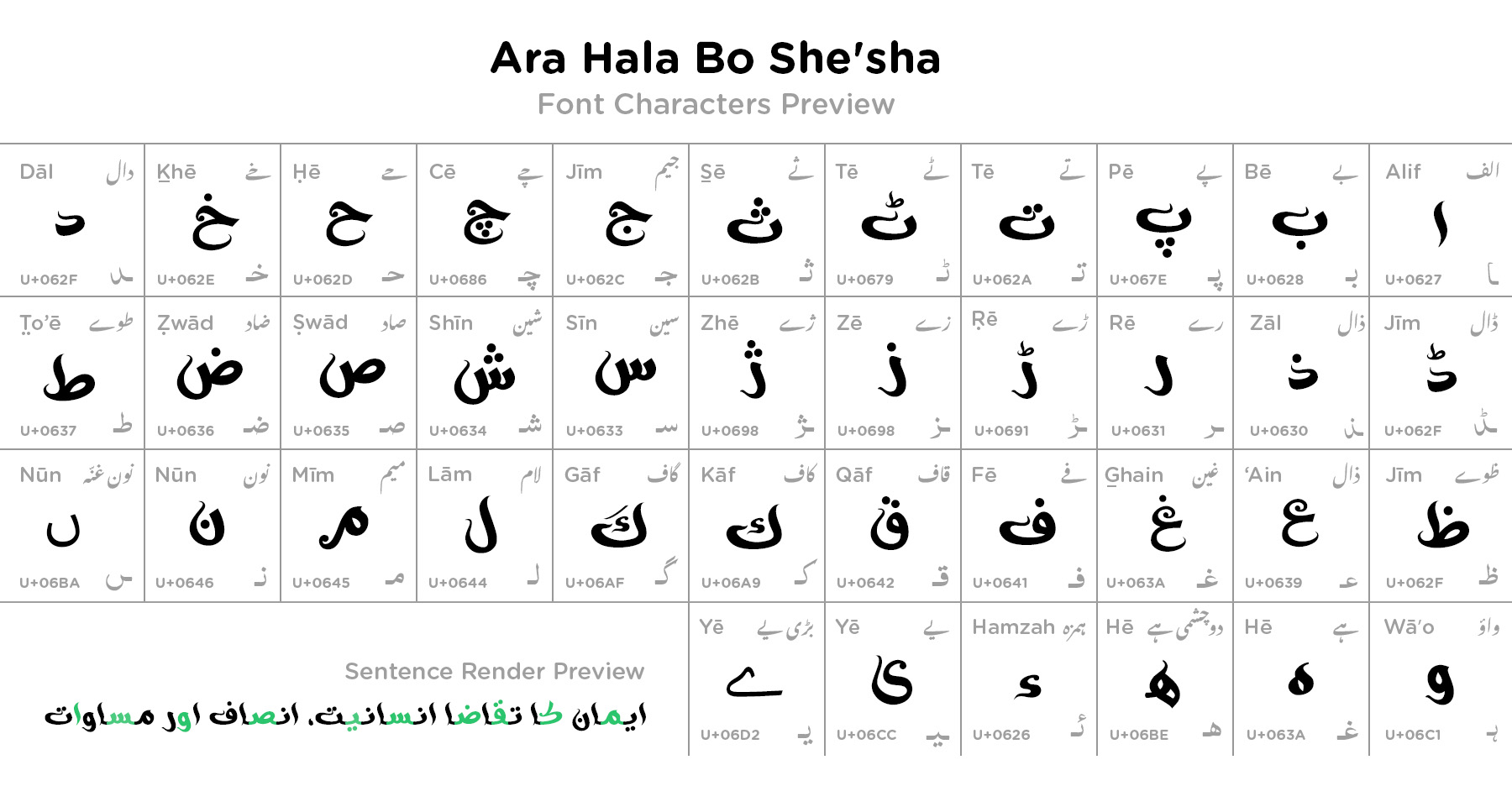
Ara Hala Bo She’sha is a bold and decorative Arabic font that offers a stylized appearance with its wavy and flowing letterforms. It is more of a design font made for design purposes than a formal one. Unlike calligraphic Arabic fonts, this one is inclined towards modern design elements. Nabil MRAD, a font designer from Hamah, Syrian Arab Republic, created this font, and it was released on September 9, 2014. iSktFalConS and ZakDesign collaborated to manufacture this font, and it is available in single weight, limiting its flexibility to adapt. Moreover, it supports many languages, such as Arabic, Latin, Urdu, and other languages, for versatile typographic projects. With 374 characters and 350 glyphs, the font’s thickness is quite inconsistent throughout its letterforms. Its bold and solid strokes add a striking visual appeal to your text. Vertical letters like “Alif” have thin and sharp edges, while it is more dense in the middle.
Further exploring its design, Ara Hala Bo She’sha offers soft and rounded corners, giving it a welcoming appeal. However, due to its informal and playful appearance, the font has very limited usage. It can be used in invitations, logos, signs, books or some other creative works that need a flair of fantasy. Even though it remains versatile in various applications, it is preferred for short texts that need creative fun and attention. Moreover, its supported Unicode blocks include Basic Latin, Latin-1 Supplement, Arabic, General Punctuation, Arabic Presentation Forms-A, and Arabic Presentation Forms-B, expanding its usage and diversity across different platforms.